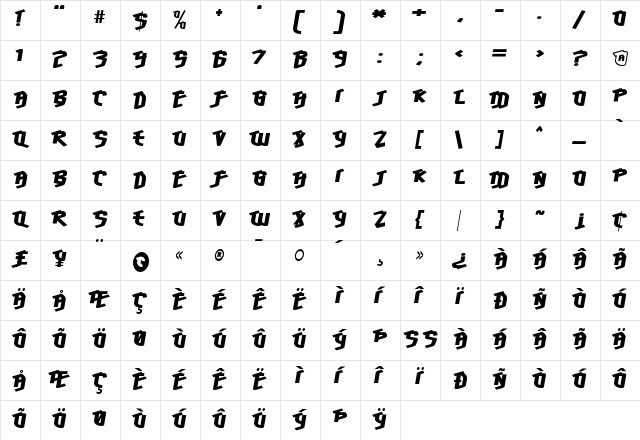
Complete Hawkeye Front glyph index. Displaying only characters natively supported by Hawkeye Front font.
Hawkeye is a composed and adaptable typeface that performs quietly and consistently across a wide range of design contexts.